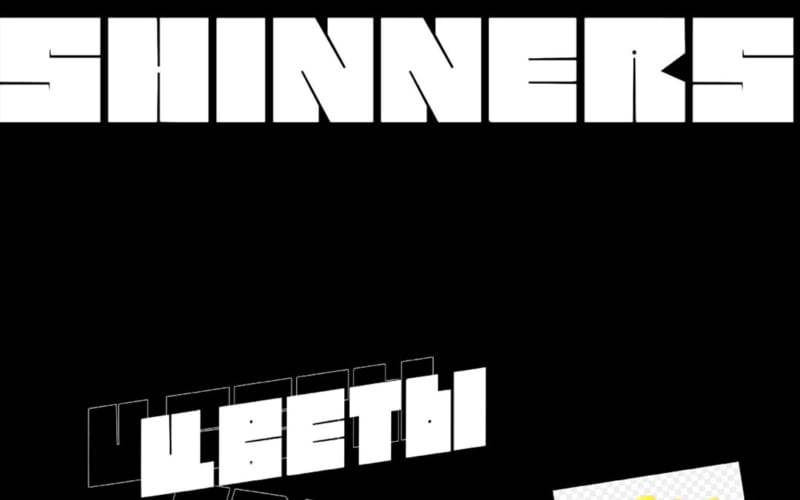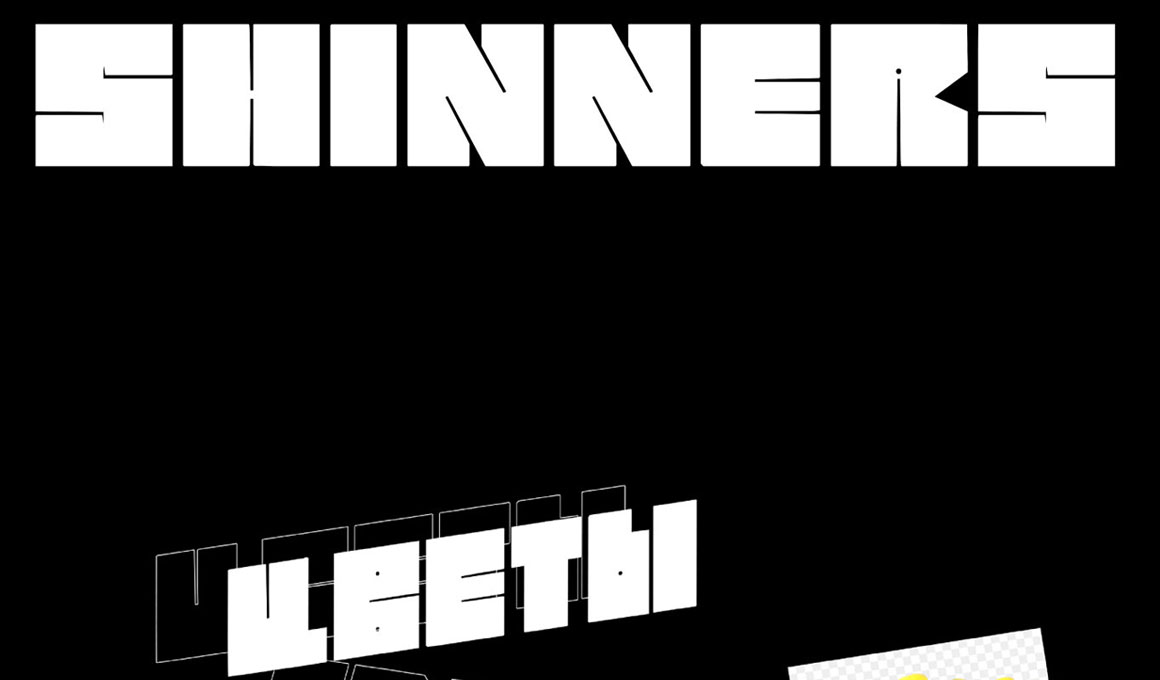
Shinners is a new font created by Pavel Bruev. This geometric display font is something straight from the future – perfect for posters, web design, logos and headlines.